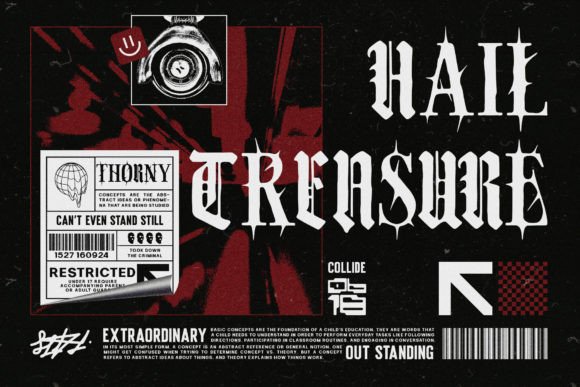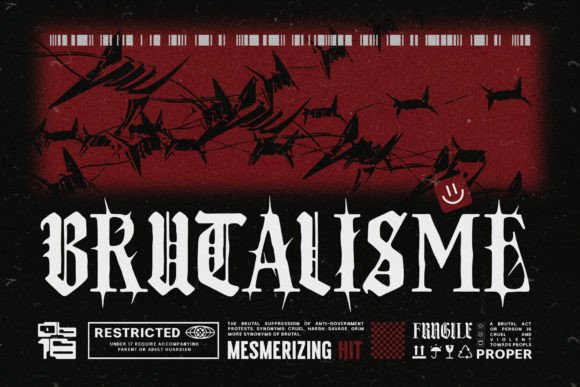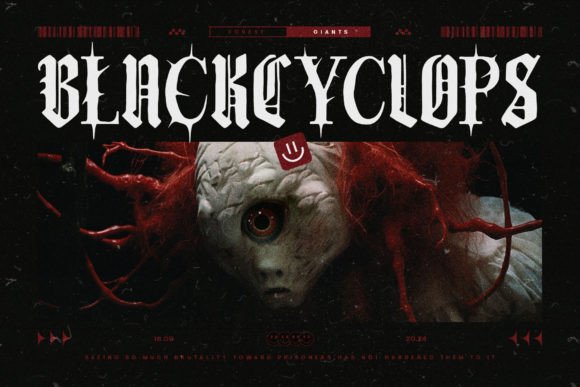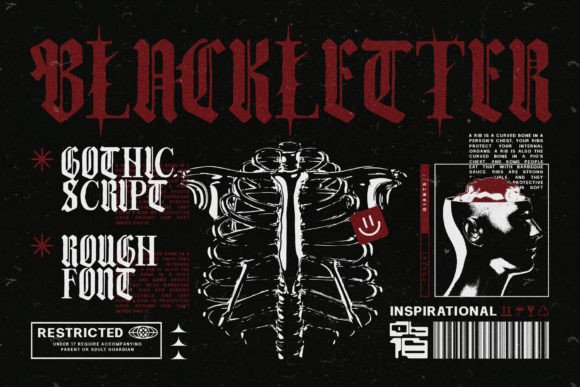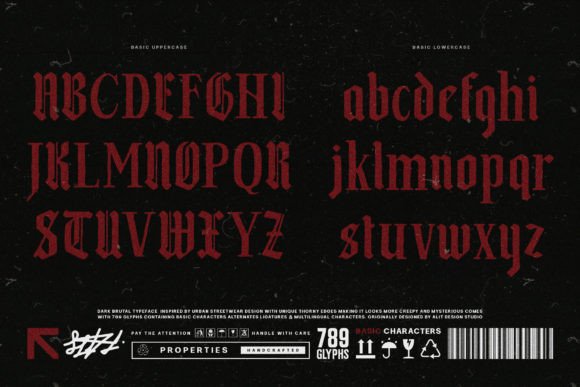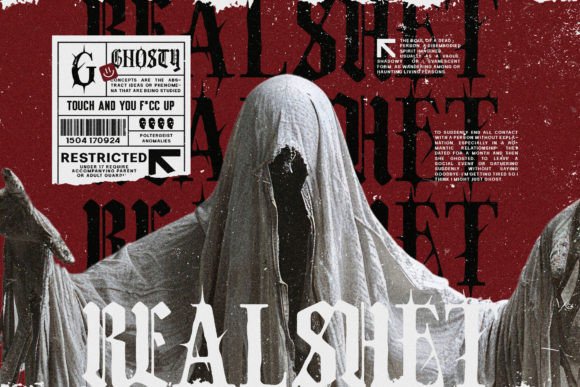
Dark Brutal Font – Free Download
Introduction to Dark Brutal Font
Introducing Dark Brutal Typeface, a powerful and unapologetically rugged blackletter font crafted for those who embrace the intensity of bold design.
This font embodies the spirit of rebellion with its sharp edges, distressed strokes, and dark, medieval-inspired aesthetic Perfect for creating a fierce visual impact, itโs ideal for projects that demand attentionโwhether itโs in music, fashion, or alternative branding.
Key Features of Dark Brutal Font
Why Choose Dark Brutal Font?